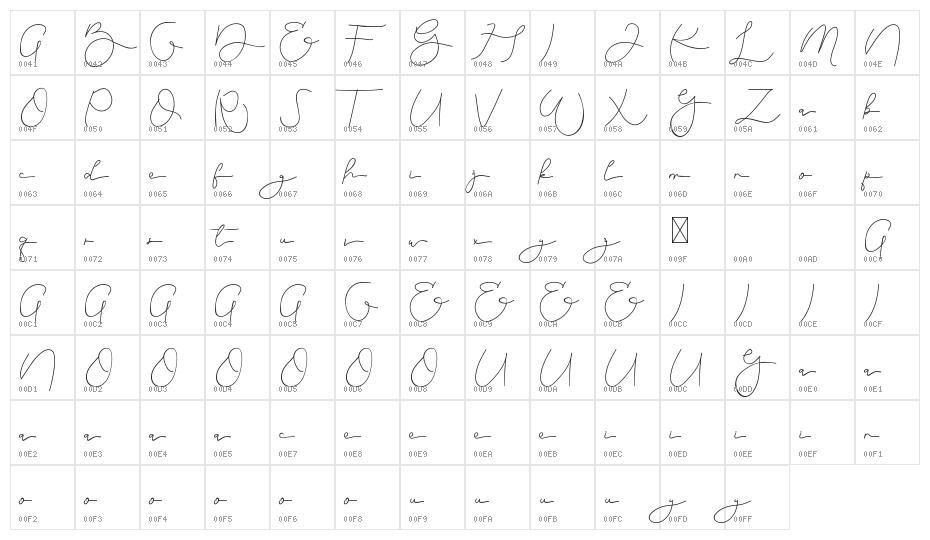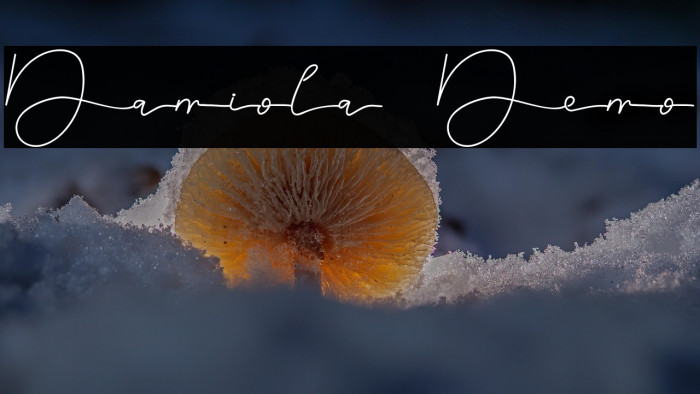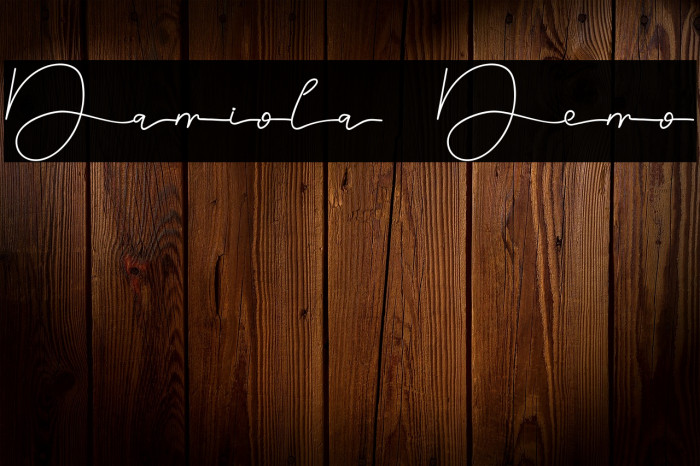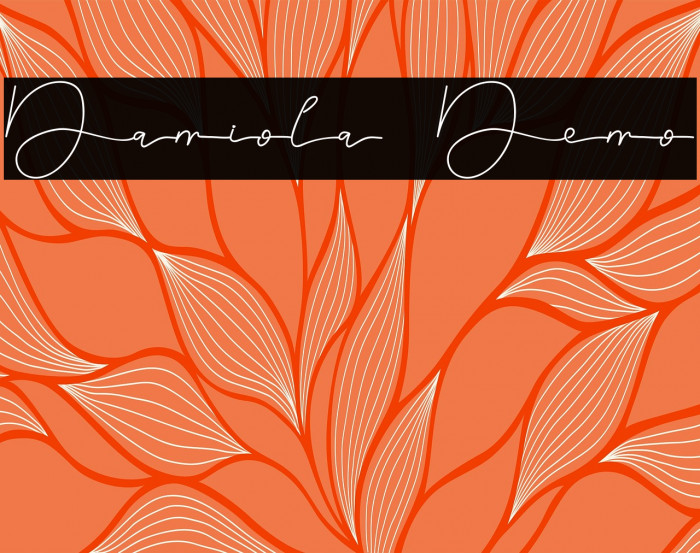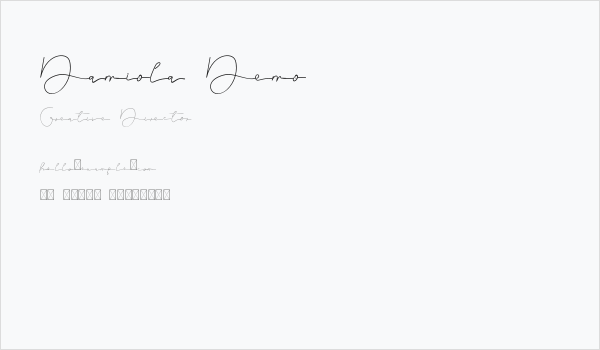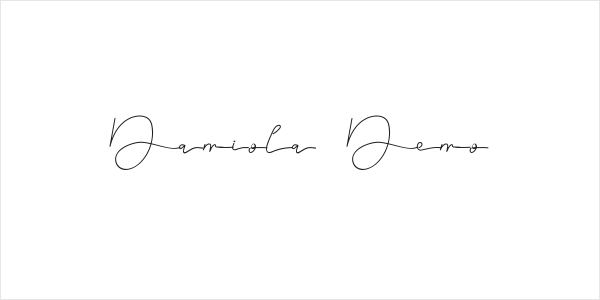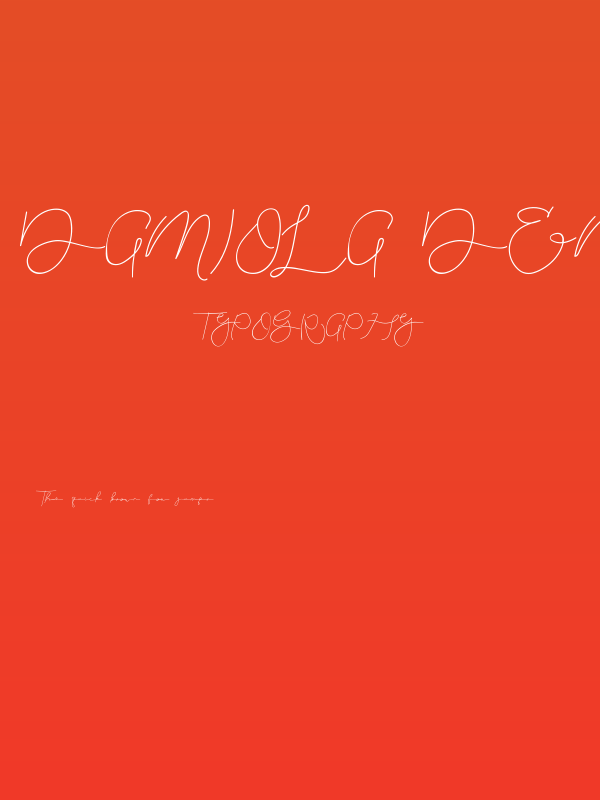
Damiola Demo Font
Damiola Demo Description
This font features an elegant, flowing script style with a modern touch. The characters are connected in a continuous, cursive manner, giving it a handwritten appearance. The strokes are thin and delicate, with a consistent line weight throughout. The uppercase letters are slightly more ornate, with loops and curves that add a touch of sophistication. The lowercase letters maintain a smooth flow, enhancing the overall graceful look. This font is ideal for projects that require a personal, elegant touch, such as invitations, greeting cards, or branding materials.